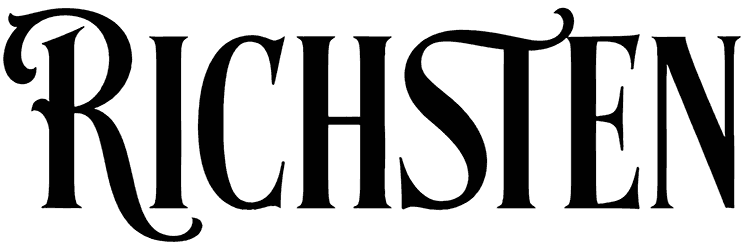
Richsten Font
When you need a letterform for your design to give it a classic and warm vibe, a vintage font like this item can handle it well. Even though you don’t have its lowercase letters, the Richsten font supports two sets of capitals with different details. With this barbershop font, you can create a café sign, a restaurant menu, or many creative designs and be unique.